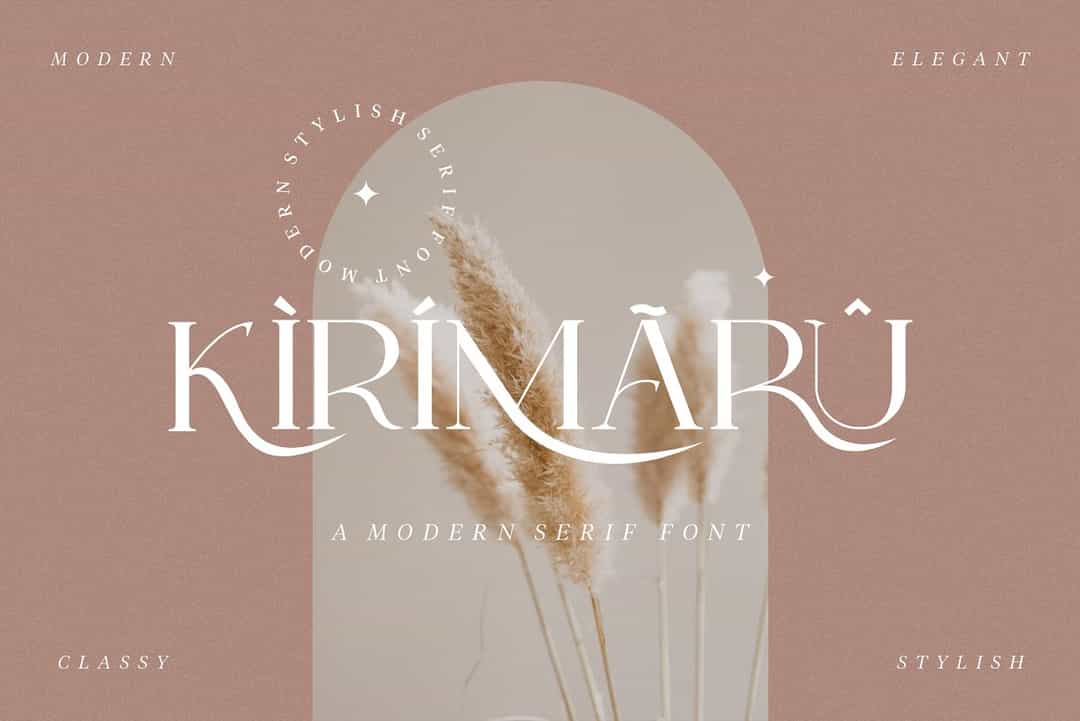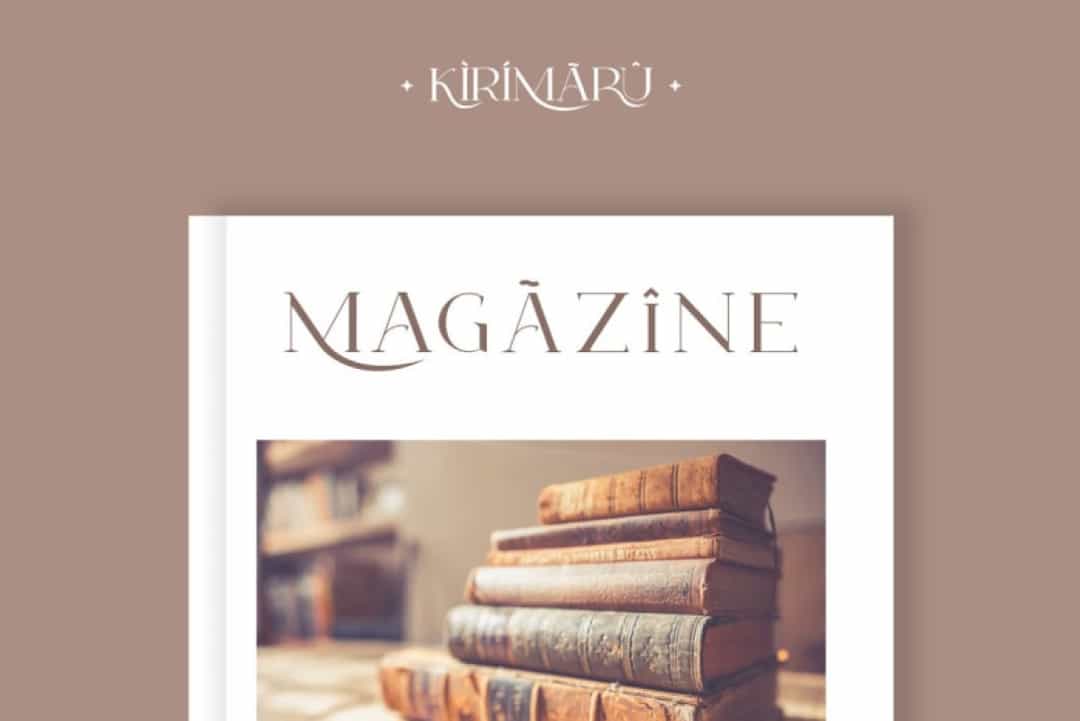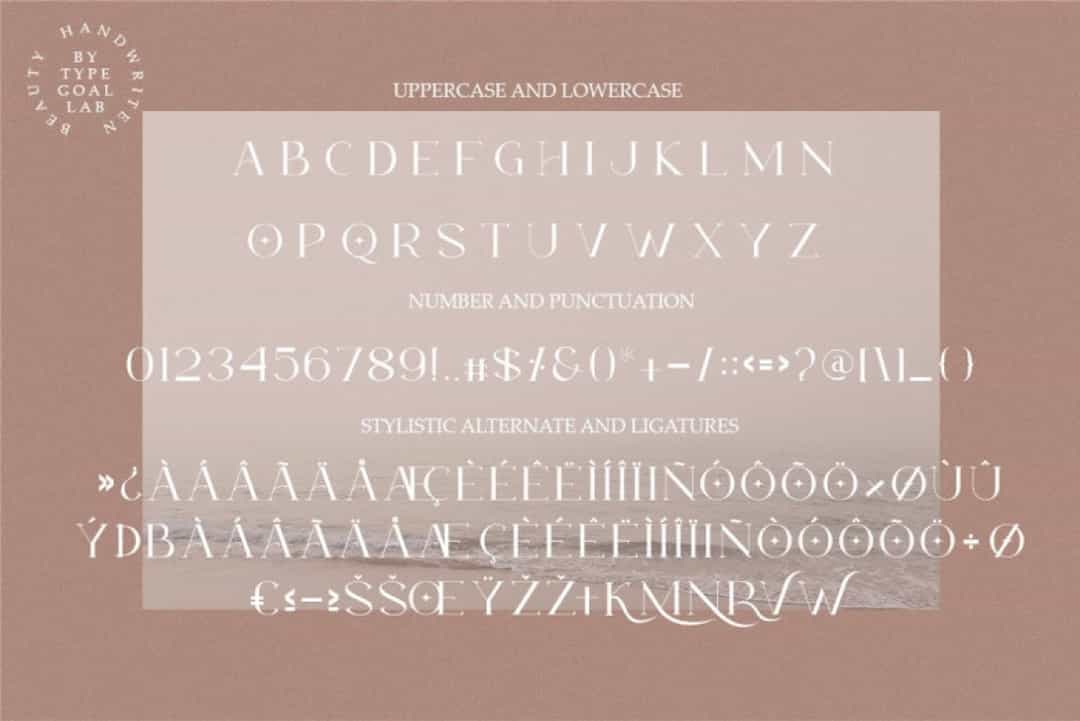
Kirimaru Serif Typeface is a perfect blend of old and modern design, carefully created with care to achieve high-end quality and luxurious appearance. The wideness of each letter gives this font its elegant appearance – ideal for logos, magazines logos and branding, photography wedding invitations, quotes blog headers postcards posters advertisements books websites etc.